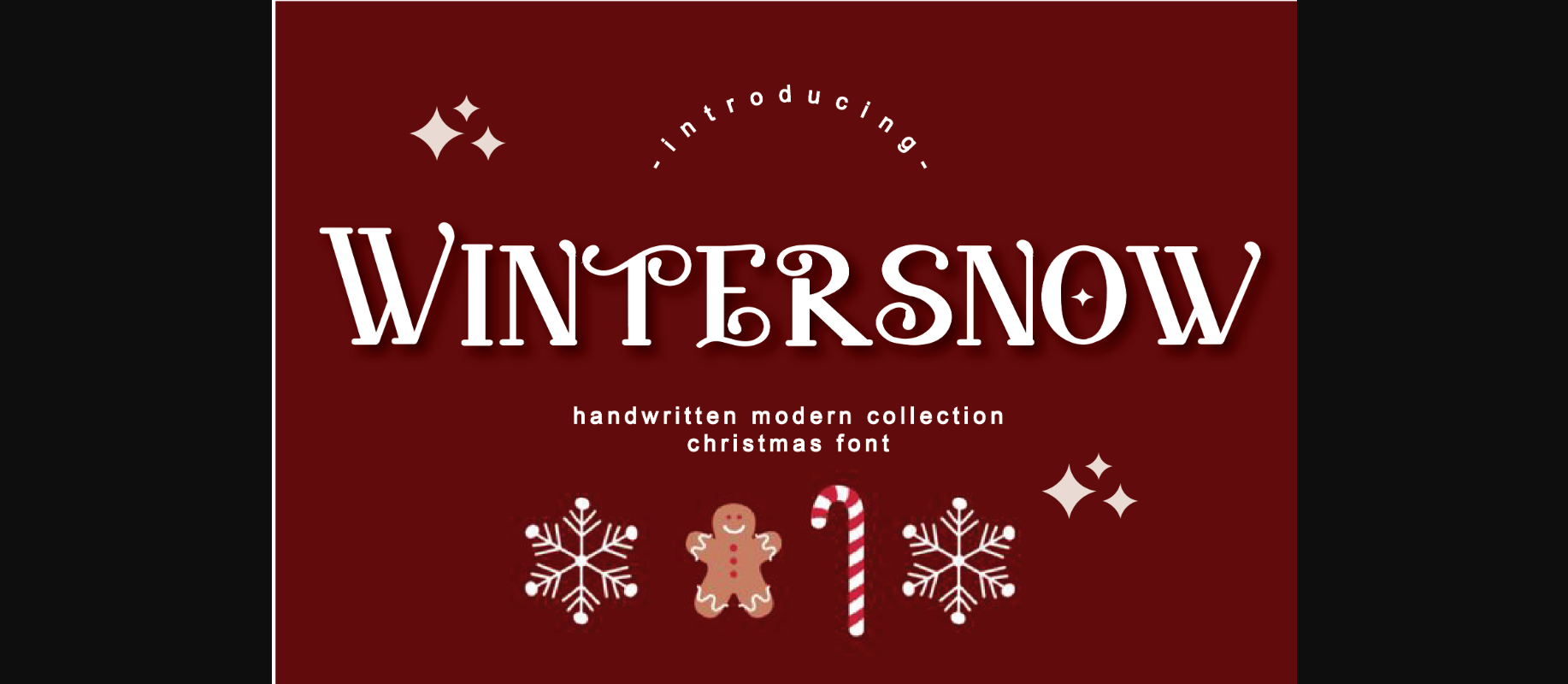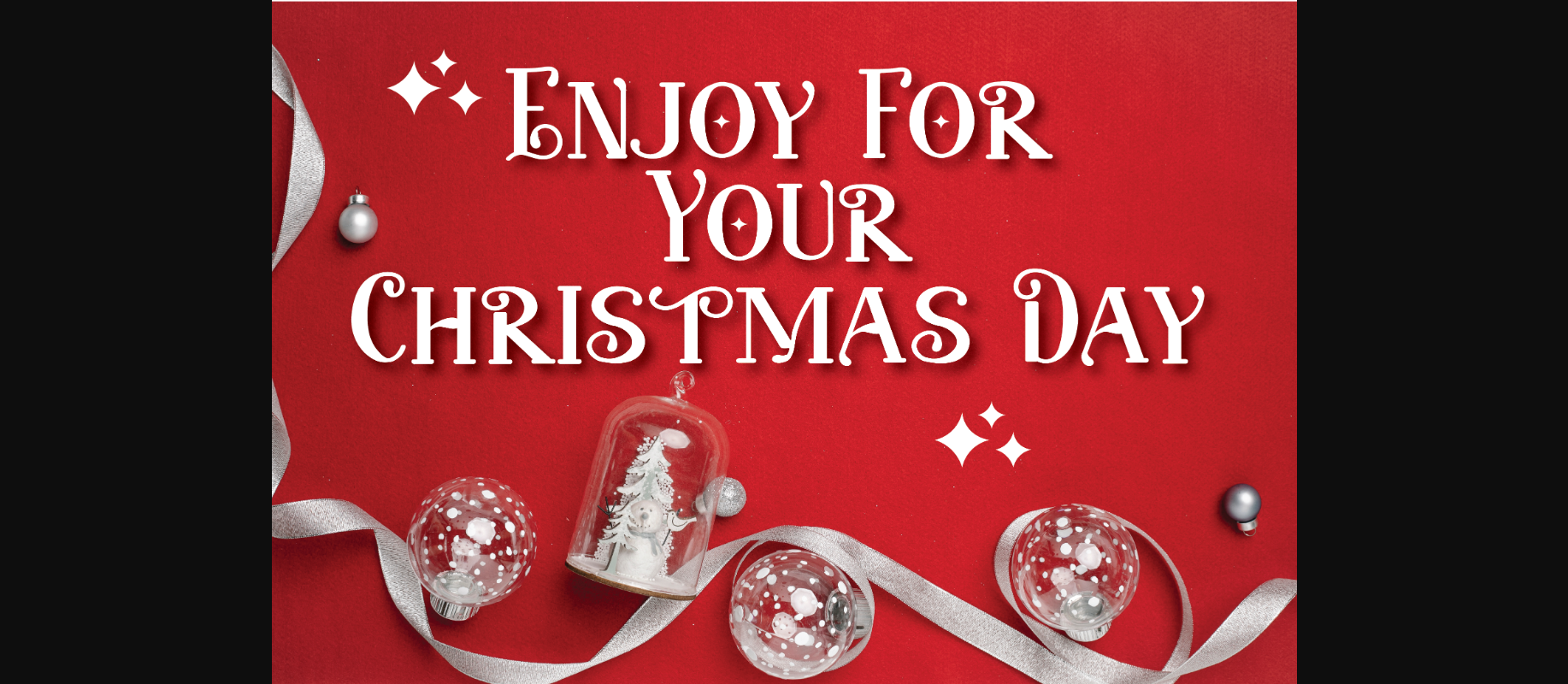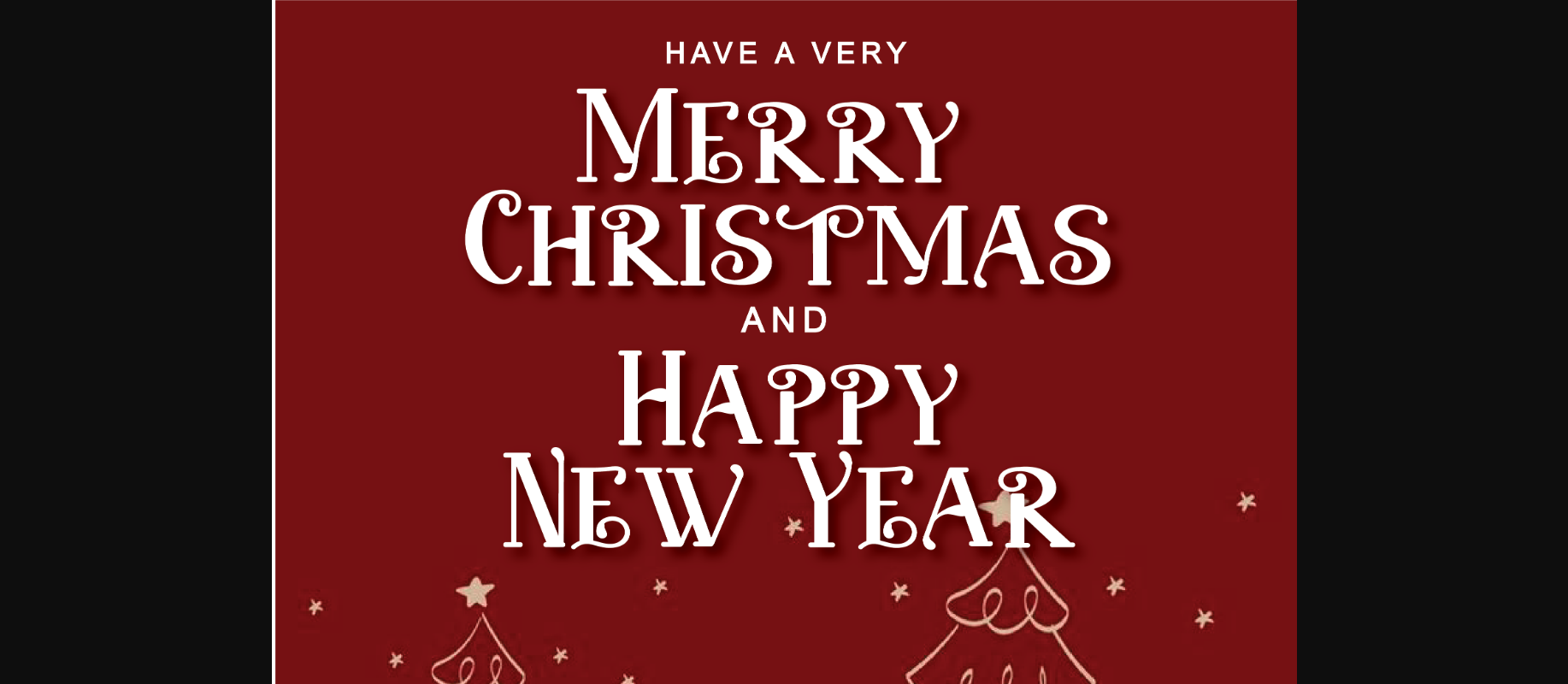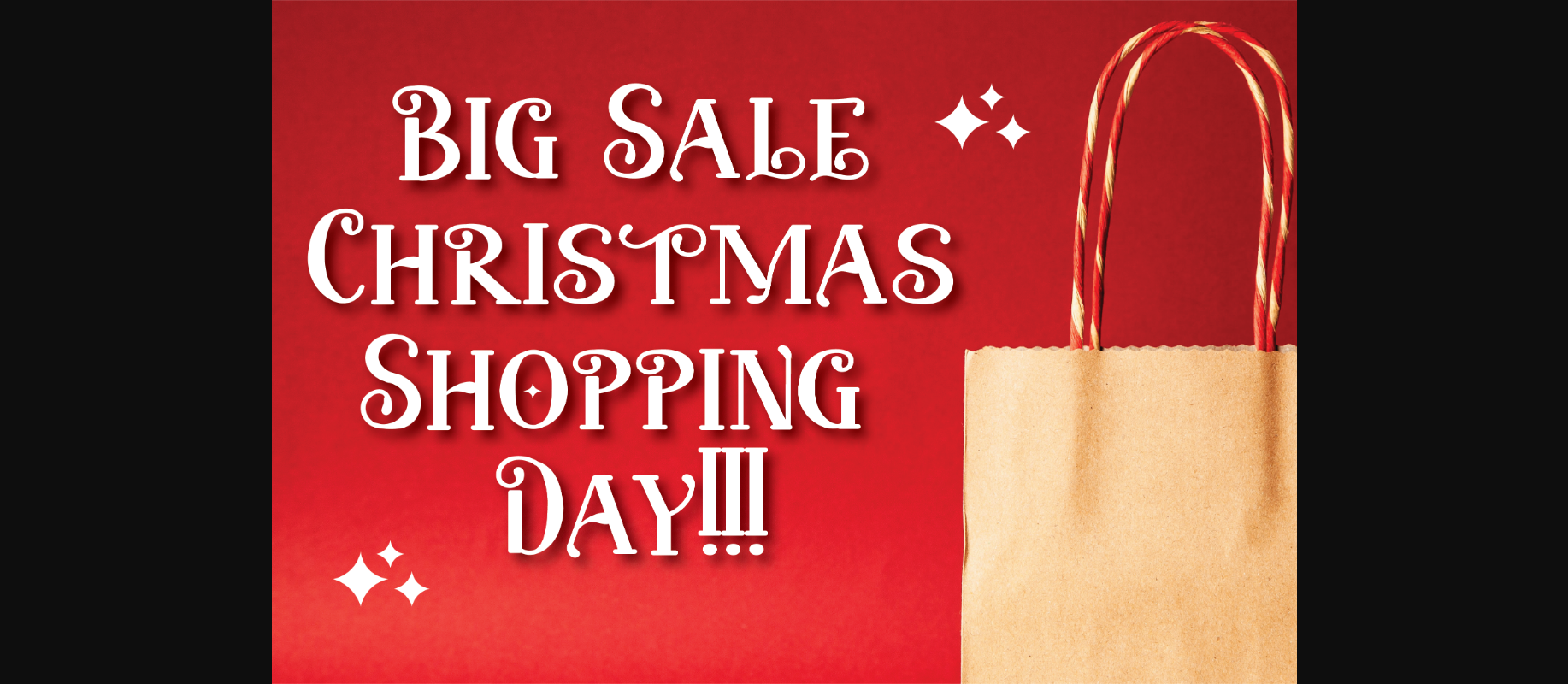
About Wintersnow Font
Wintersnow font is a playful and festive typeface that captures the youthful spirit of the holiday season. With its fun and quirky design, this font adds a touch of holiday cheer to your Christmas-themed designs.